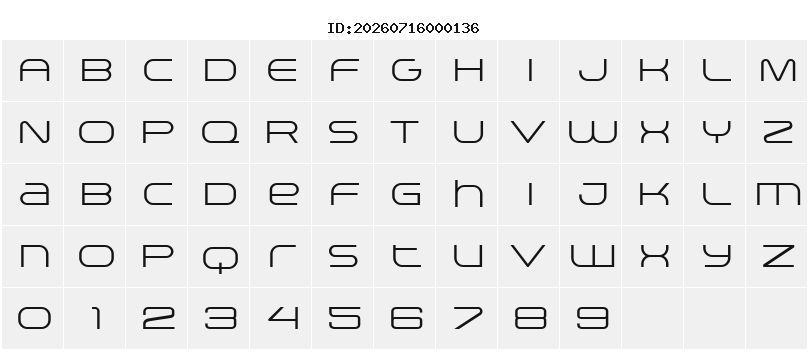
• Font Name: Arkitech
• Font Style: Light
• Full Font Name: Arkitech Light
• Designer: Ivan Filipov
• Manufacturer: neogrey creative, Ivan Filipov
About Arkitech.ttf
Arkitech.ttf is a modern, elegant sans-serif font designed for ultimate readability and visual harmony. Perfect for branding, headlines, web design, and print materials.